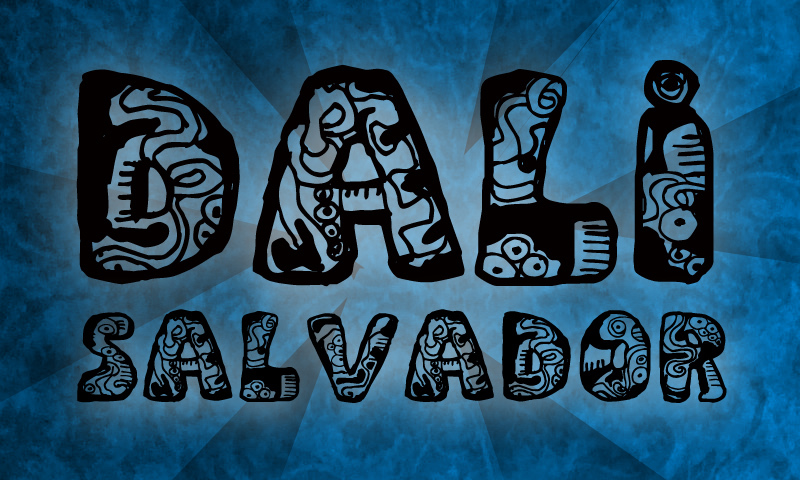
Dali by Cloutier Fontes is a free cartoon display font with chunky upright capitals packed with surreal line drawings. Rounded silhouettes give each letter the weight of a cutout emblem. Inside, eyes, faces, spirals, and warped organic shapes turn the alphabet into a busy illustrated set.
Surrealist design is its clearest setting. It suits exhibition posters, album packaging, and offbeat event graphics, where lettering can double as artwork. The recurring eyes and melting contours also make it apt for experimental merchandise and magazine covers built around dreamlike imagery.
Dali Regular is a font by CloutierFontes, designed by Steve Cloutier in 2012.